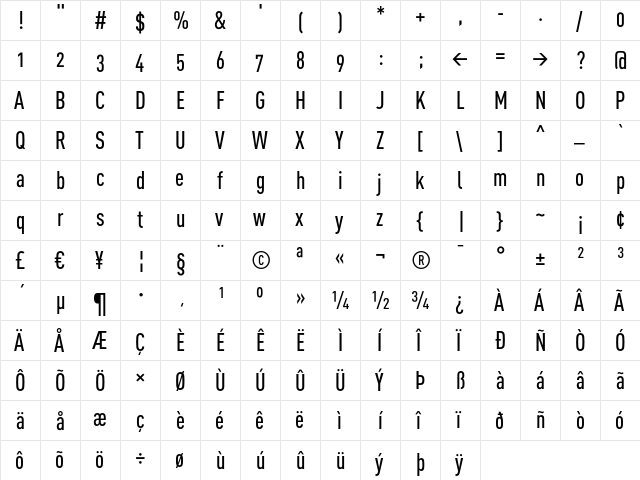
DINCond-MediumAlternate Regular Font Preview
DINCond-MediumAlternate Regular
DINCond-MediumAlternate Regular Font Details
Design Context for DINCond-MediumAlternate Typeface
DINCond-MediumAlternate takes a measured approach to typography — its balanced proportions and neutral character make it a reliable workhorse for both digital and print work. The condensed width makes it efficient for tight spaces without sacrificing legibility.